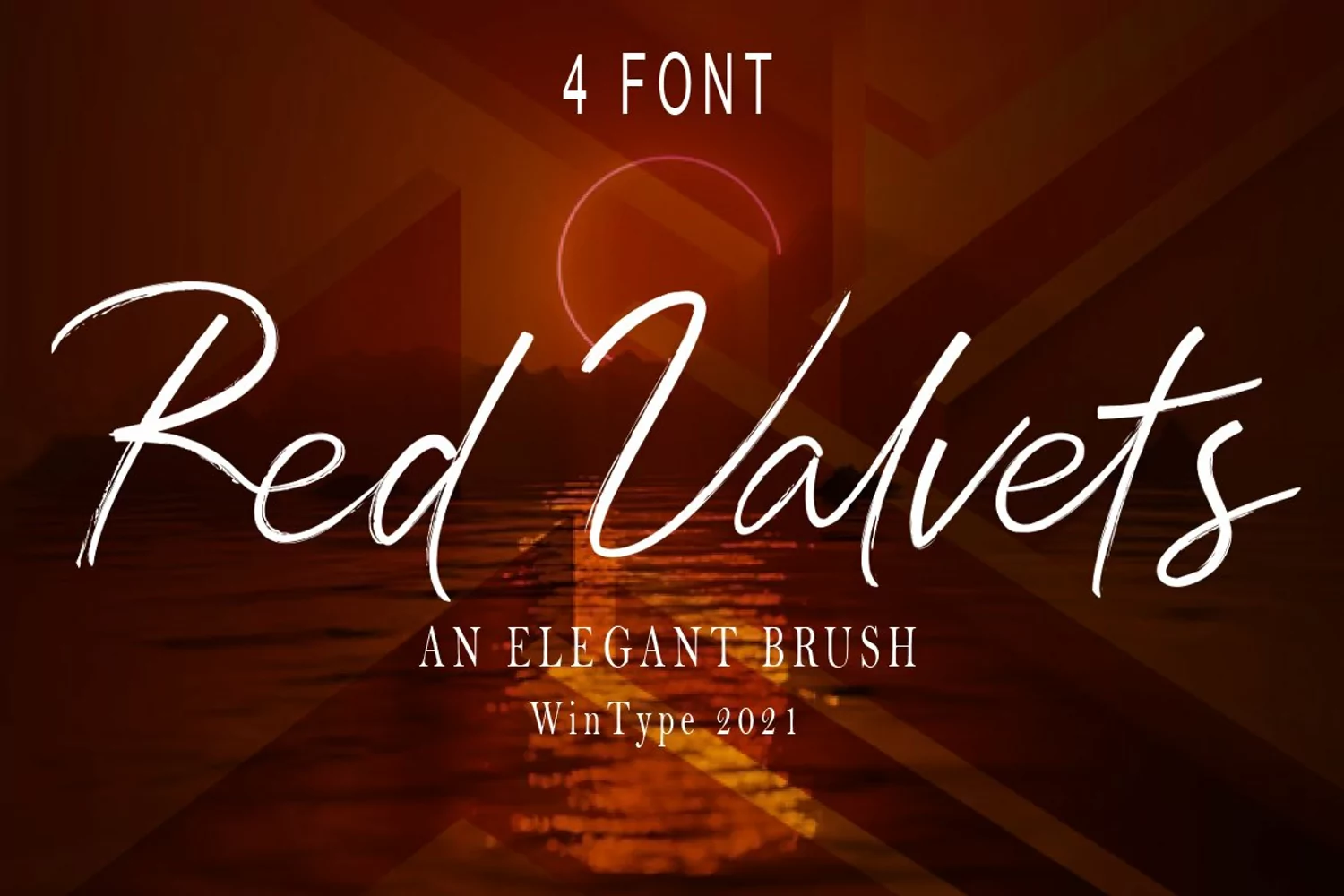
Red Valvets
Red valvets is a font you should have found, and now it creates 4 fonts at once.
Red Valvets is a loving handwritten brush script, with a graceful and flamboyant atmosphere and full of meaning.
Red Valvets is special because in the 4 existing fonts 26 ligatures are included each. Ligatures can be written in a large selection of additional letters built into them. Hopefully this adds to your creative design.